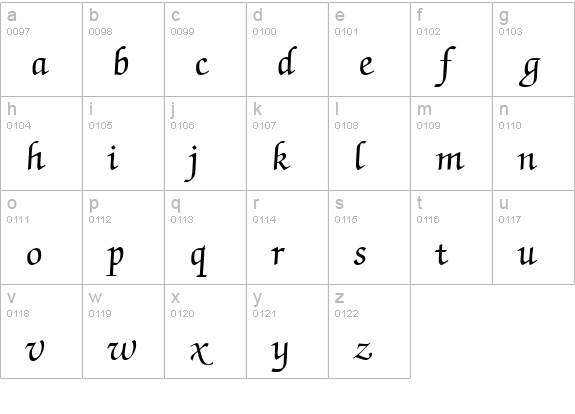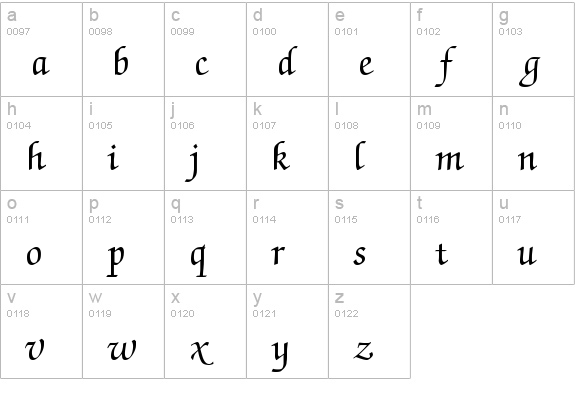
ZabriskieScriptSwash-Bold Font Details
ZabriskieScriptSwash-Bold is a strong, high-contrast variant in the ZabriskieScriptSwash typeface family \xE2\x80\x94 well suited to headlines, attention-grabbing titles, and strong calls-to-action.
ZabriskieScriptSwash-Bold is a stunning and elegant font that exudes sophistication and charm. Its intricate swashes and bold strokes make it perfect for creating eye-catching designs and adding a touch of luxury to any project. The fluidity of the script gives a sense of movement and grace, making it a versatile choice for various design applications. This font is not only visually appealing but also versatile, suitable for a wide range of projects including invitations, branding, packaging, and more. Its bold weight adds a sense of strength and presence, while the swashes bring an element of whimsy and flair. Best of all, ZabriskieScriptSwash-Bold is available for free download at FontsMarket.com. This means you can easily access this beautiful font and incorporate it into your projects without any cost. Don't miss out on the opportunity to enhance your designs with this exquisite typeface. Download ZabriskieScriptSwash-Bold today and elevate your creative work to new heights.